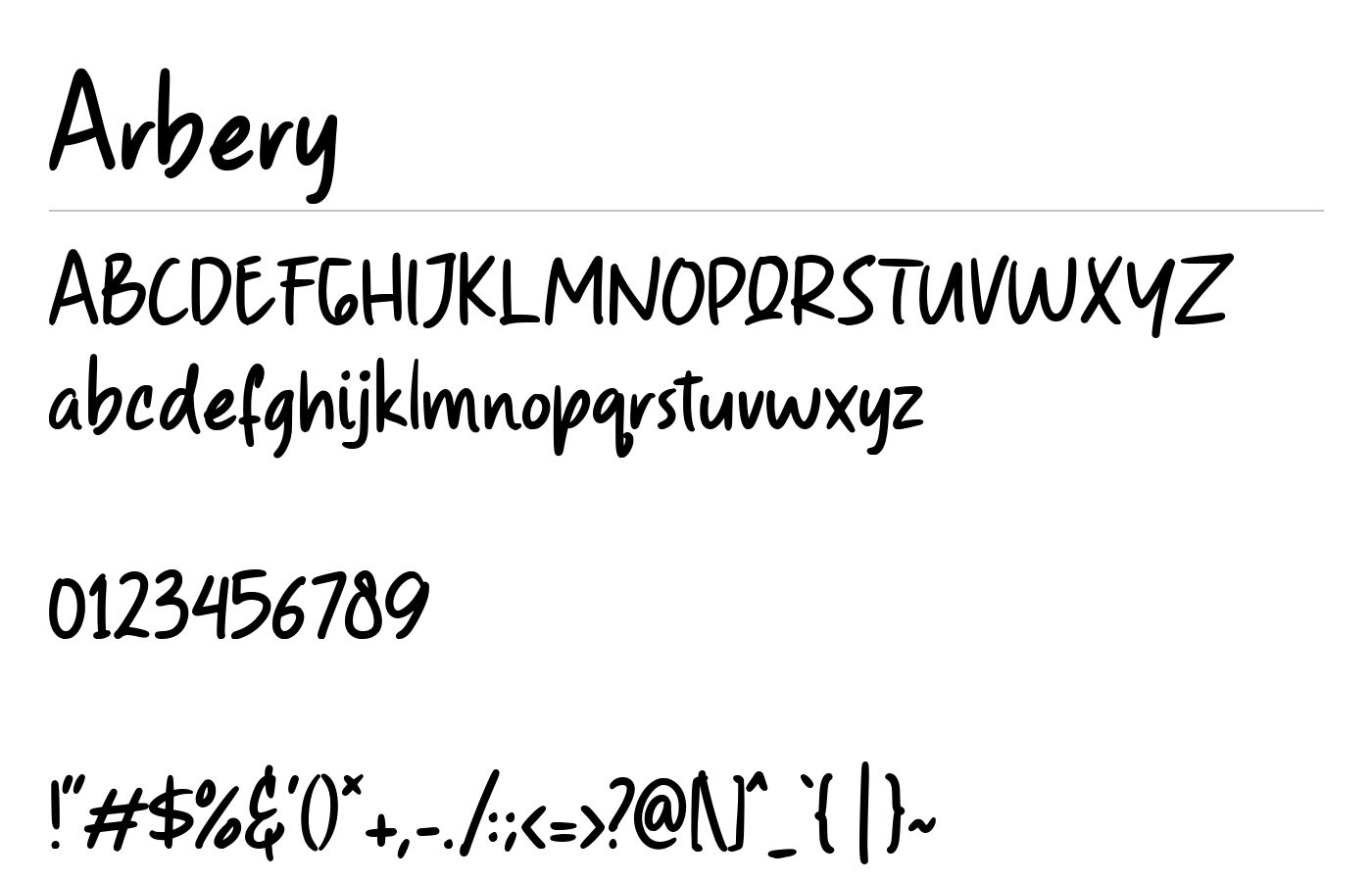
Arbery is a casual, handwritten sans serif font with a friendly and approachable style. Its medium weight, slightly condensed letterforms, and smooth, irregular strokes give it an informal, natural feel perfect for playful branding, personal projects, and creative headlines. This font works well where a warm, human touch is needed, such as greeting cards, logos, and social media designs.
Arbery Font
About Arbery Font